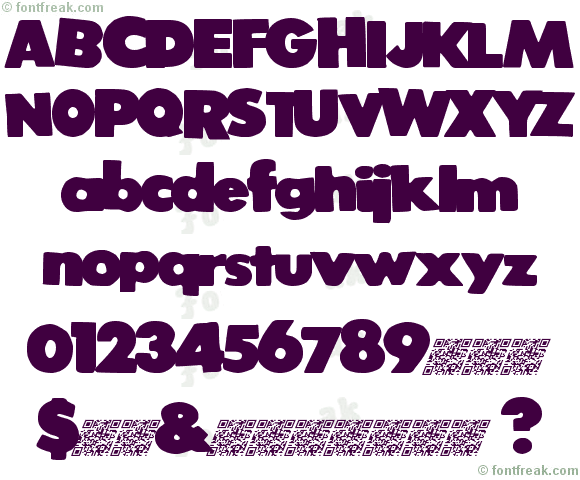
StrongVoid
The StrongVoid font by XEROGRAPHER FONTS is a striking display typeface that captures attention with its bold and unique aesthetic. Released in 2014, this freeware font stands out for its robust, geometric forms that convey a sense of strength and modernity. The visual characteristics of StrongVoid include a consistent stroke weight that emphasizes its powerful presence, while the slight contrast in line thickness adds a dynamic touch. The spacing is carefully crafted, ensuring legibility and balance, making it perfect for various design applications.
StrongVoid is particularly well-suited for use in high-impact projects such as movie posters, where its commanding style can evoke excitement and anticipation. It also shines in branding materials for small businesses, providing a memorable visual identity that resonates with customers. Additionally, this font is an excellent choice for event promotions, as its boldness draws the eye and creates an inviting atmosphere. Graphic designers looking for a unique typeface to enhance their creative projects will find StrongVoid to be an invaluable asset.
The target audience for this font includes graphic designers, small business owners, and content creators who are seeking a versatile typeface that can elevate their work. The strong visual impact of StrongVoid makes it an ideal choice for any project that requires a bold statement.
What sets the StrongVoid font apart is its ability to merge strength with style, making it a standout option in the world of typography. Whether you are designing a website, creating marketing materials, or crafting a unique logo, StrongVoid font free download offers a powerful tool to help your designs make a lasting impression. Embrace the strength of StrongVoid and let your creativity thrive.